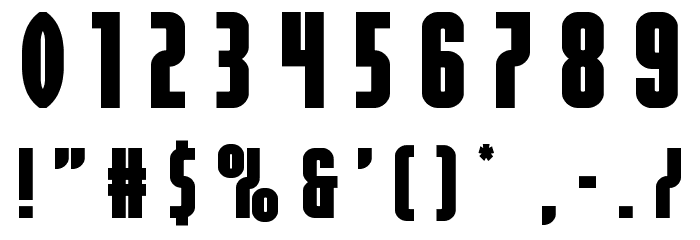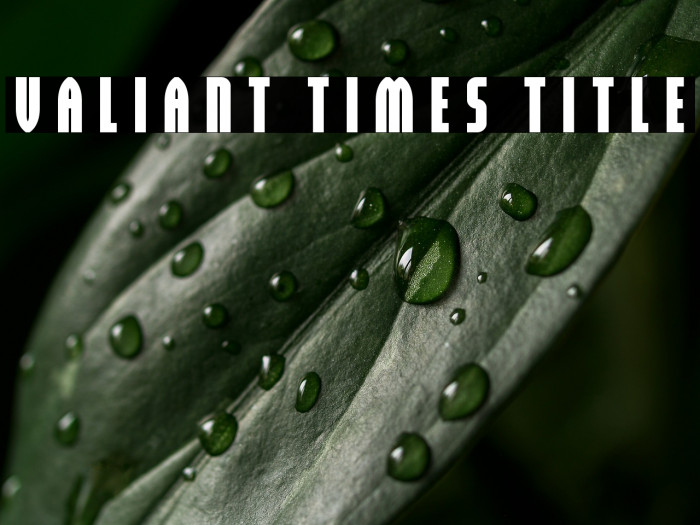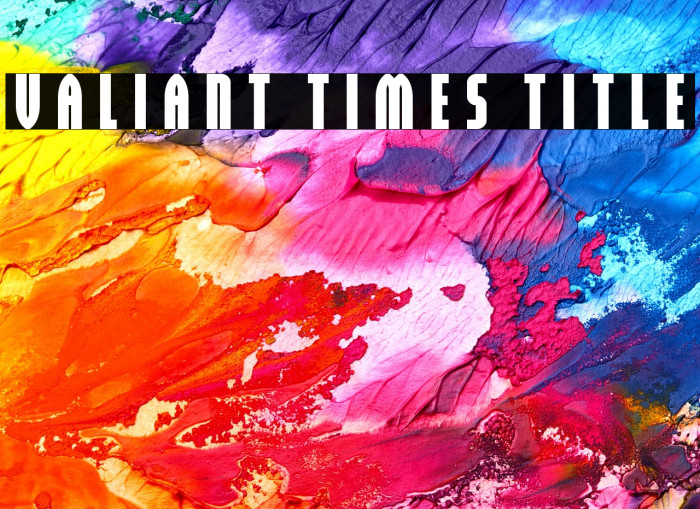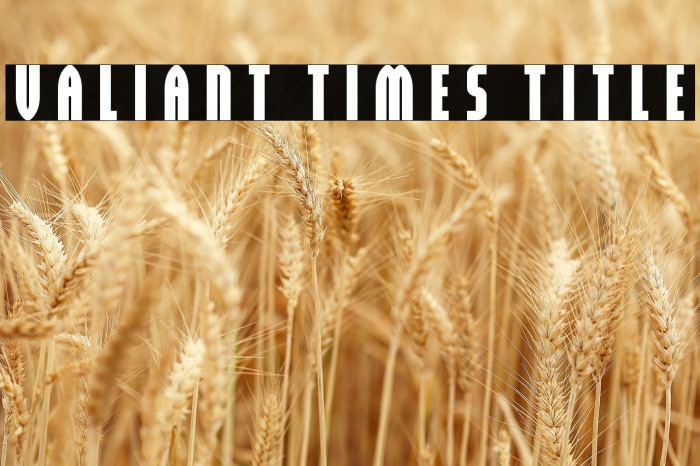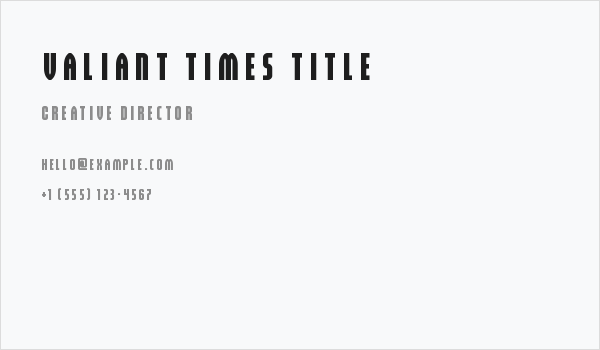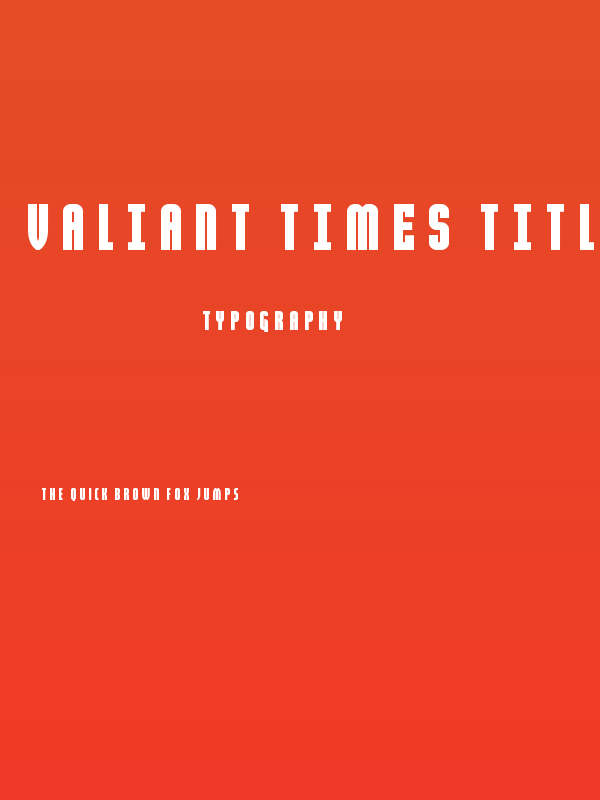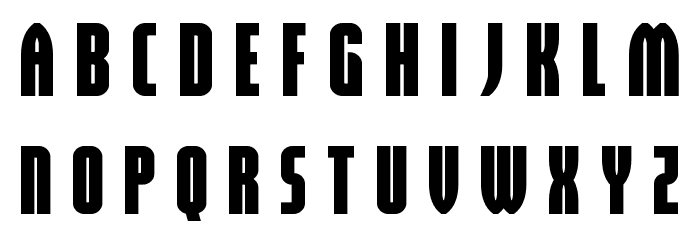
Valiant Times Title Font
Valiant Times Title Description
This font features a bold and striking design with a strong presence. The characters are tall and narrow, with a condensed width that gives them a powerful and impactful look. The strokes are thick and consistent, providing a high contrast that enhances readability and visual appeal. The uppercase letters are particularly prominent, with a uniform height that maintains a cohesive appearance across the alphabet. The numbers and special characters follow the same bold style, ensuring consistency throughout. This font is ideal for making a statement and drawing attention.
| Proposed Projects | Ideal for headlines, posters, branding, and any project requiring a bold statement. |